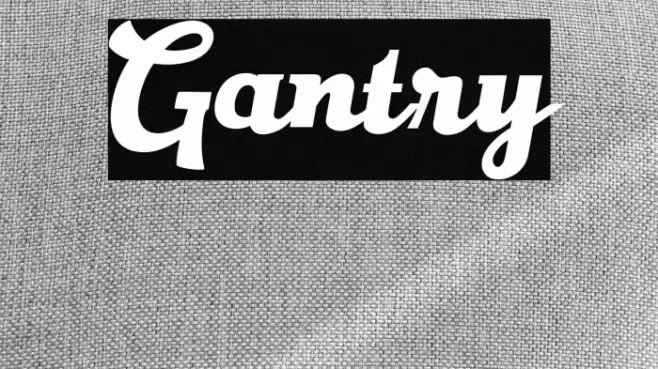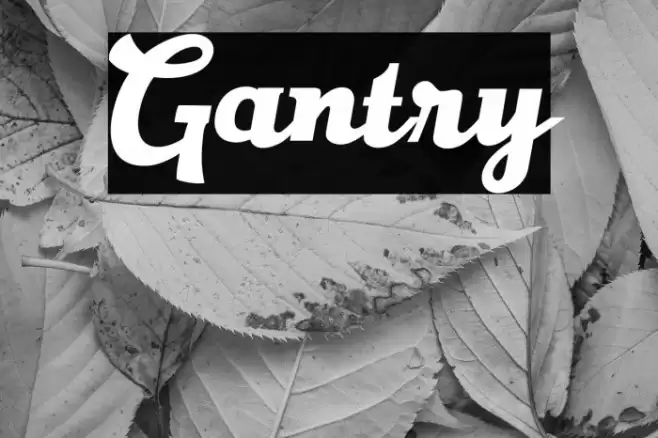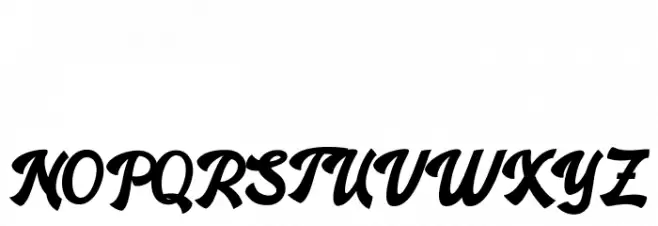
Gantry Font
Gantry Description
This font features a bold and flowing script style, characterized by its smooth, cursive strokes and elegant curves. The uppercase letters are particularly striking, with a dynamic and slightly slanted appearance that adds a sense of movement and grace. The lowercase letters maintain a consistent flow, enhancing readability while preserving the decorative nature of the script. The font's bold weight ensures strong visibility, making it suitable for impactful designs. Its overall style is both classic and modern, offering versatility for various creative applications.
A bold, flowing script font with elegant curves and dynamic slant from Regular fonts.
- Font: Gantry
- Proposed Projects: Ideal for wedding invitations, branding, logo design, and elegant packaging.
- Overall Style: Classic
- Use Case: Logos, Headlines, Invitations